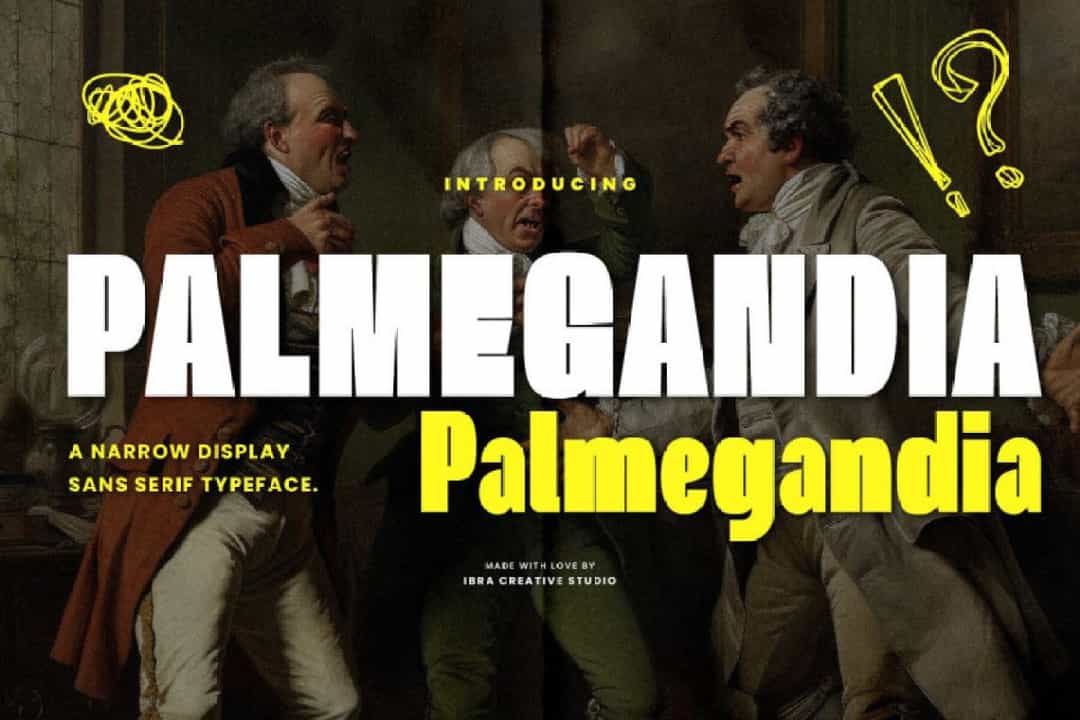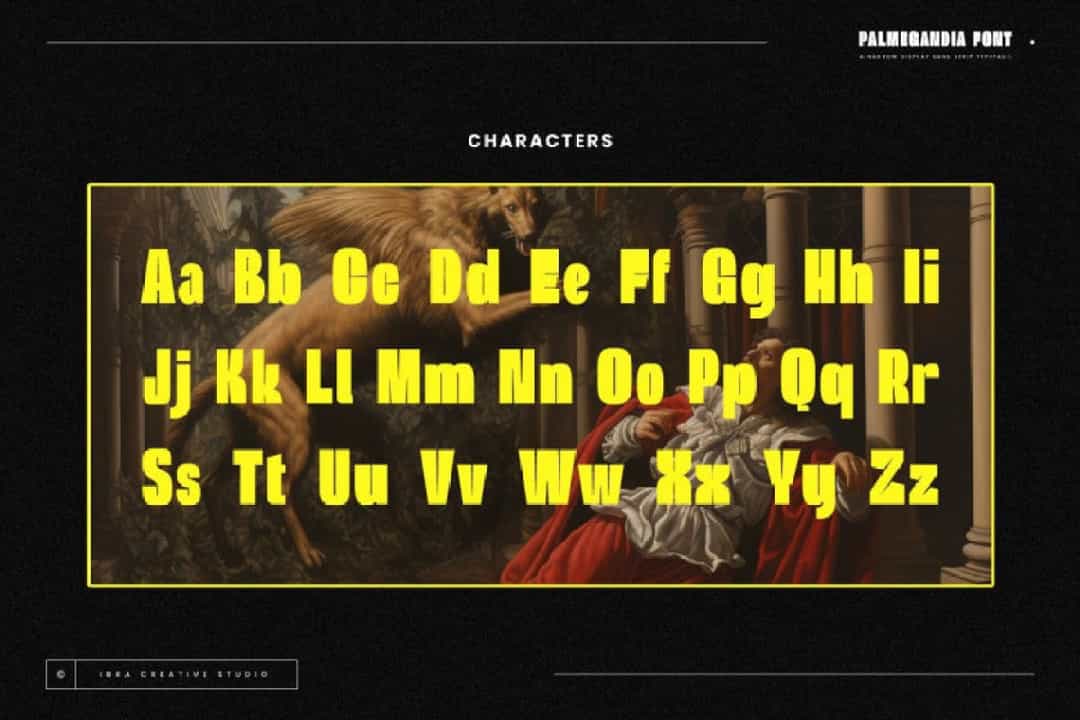
Palmegandia can be best described as an elegant slim display sans-serif typeface that perfectly balances modernity with simplicity. Its slim letterforms radiate modern sophistication, making this font perfect for use where space is tight in headlines or banners; additionally it makes an excellent logo choice.